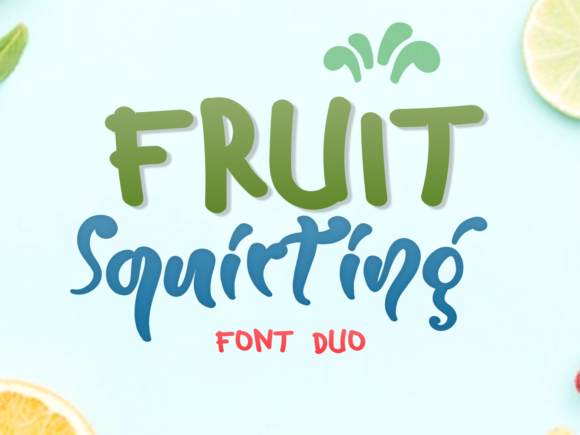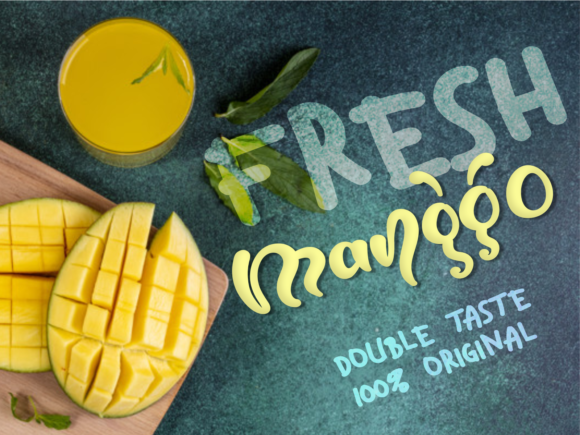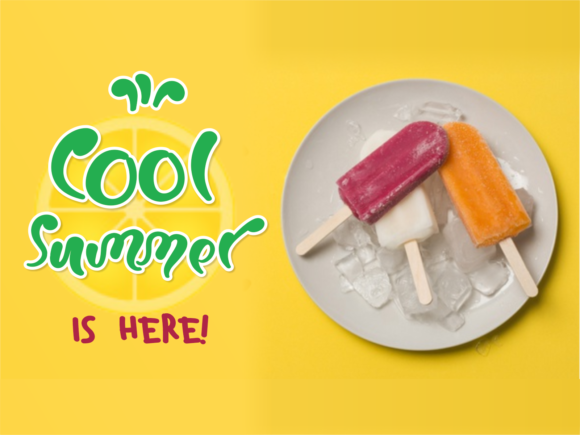
Fruit Squirting Font
Fruit Squirting is a chic, refined script font that emanates sophistication and elegance. Its stylish alternates and ligatures make this font the perfect match for any project. Fruit Squirting is PUA encoded which means you can access all of the glyphs and swashes with ease!